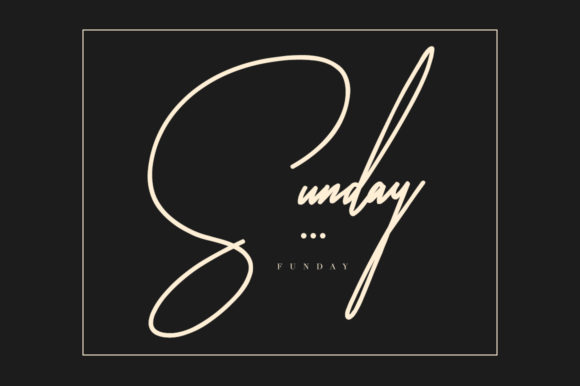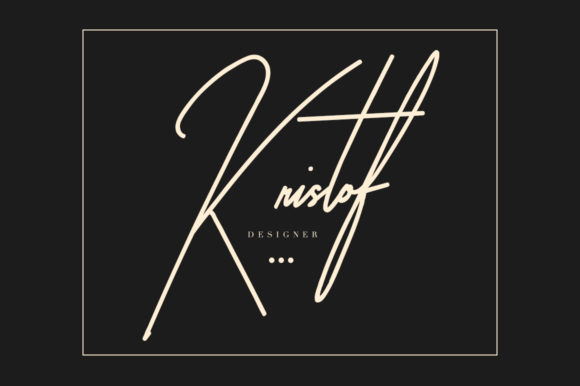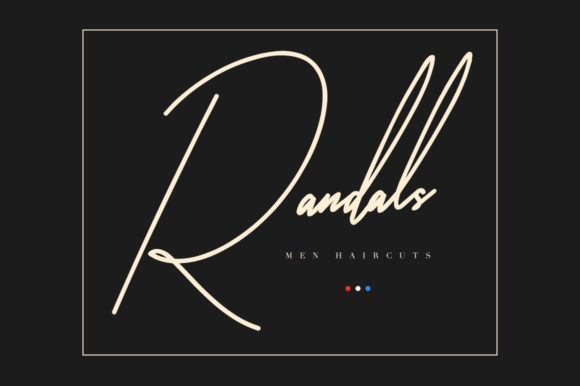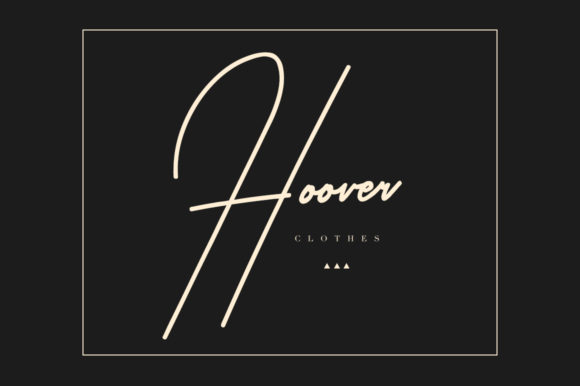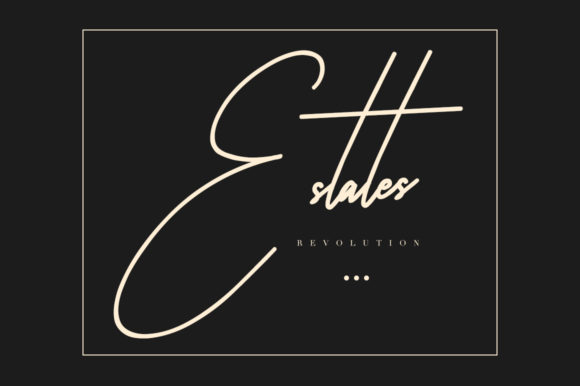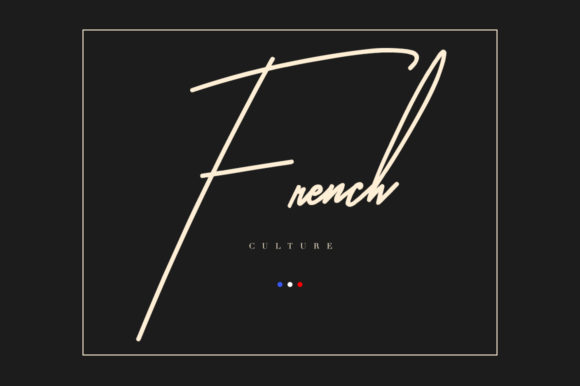
Introducing Gladise Font: The Epitome of Elegance and Versatility
In the realm of typography, few fonts manage to strike a balance between elegance and playfulness. However, Gladise Font stands out as a beacon of sophistication and charm, designed to elevate your creative projects to new heights. This outstanding script font simplifies elegance into a single, truly remarkable typeface that is poised to revolutionize the way you approach design.
The Allure of Gladise Font
Gladise is not just a font; it’s an experience. It brings to the table a unique blend of classic sophistication and modern flair, making it the perfect choice for designers and crafters looking to infuse their work with a touch of personality. Whether you’re aiming to create stunning logos, captivating social media posts, adorable stationery, or heartwarming greeting cards, Gladise is your go-to font.
Crafting Amazing Logos with Gladise
Logos are the cornerstone of brand identity, and with Gladise Font, you can create logos that are not only visually appealing but also memorable. The elegant strokes and beautiful ligatures of Gladise add a level of sophistication that can elevate your brand’s image. From luxury brands to personal blogs, Gladise helps you make a lasting impression.
Eye-Catching Social Media Posts
In the digital age, social media is a powerful tool for communication and expression. With Gladise, you can create social media posts that stand out in crowded feeds. The font’s unique charm and elegance make it perfect for crafting posts that engage, inform, and delight your audience. Whether you’re a business looking to promote your products or an individual sharing your passions, Gladise helps you connect with your audience on a deeper level.
Cute Stationery and Lovely Greeting Cards
For crafters and stationery enthusiasts, Gladise offers endless possibilities. The font’s playful yet sophisticated nature makes it ideal for designing cute stationery that stands out. Moreover, Gladise can be used to create lovely greeting cards for any occasion. The personal touch that Gladise brings to your stationery and greeting cards makes them truly special, perfect for making your recipients feel cherished.
Why Choose Gladise Font?
So, what makes Gladise a superior choice for your design needs? Here are a few reasons:
- Elegance and Versatility: Gladise strikes the perfect balance between elegance and playfulness, making it versatile for various design projects.
- Easy to Read: Despite its elegant and cursive nature, Gladise remains highly legible, ensuring your message is always clear.
- Highly Customizable: With Gladise, you have the flexibility to adjust the font to fit your project’s tone and style, from subtle tweaks to dramatic transformations.
- Unique Character: The font’s distinctive character sets it apart from more common typefaces, allowing your designs to stand out.
Getting Started with Gladise
Gladise Font is more than just a typeface; it’s a design companion that brings elegance, versatility, and charm to your projects. Whether you’re a professional designer or a crafting enthusiast, Gladise offers the tools you need to create stunning designs that captivate and inspire. With Gladise, you can simplify elegance into truly outstanding designs that leave a lasting impression.